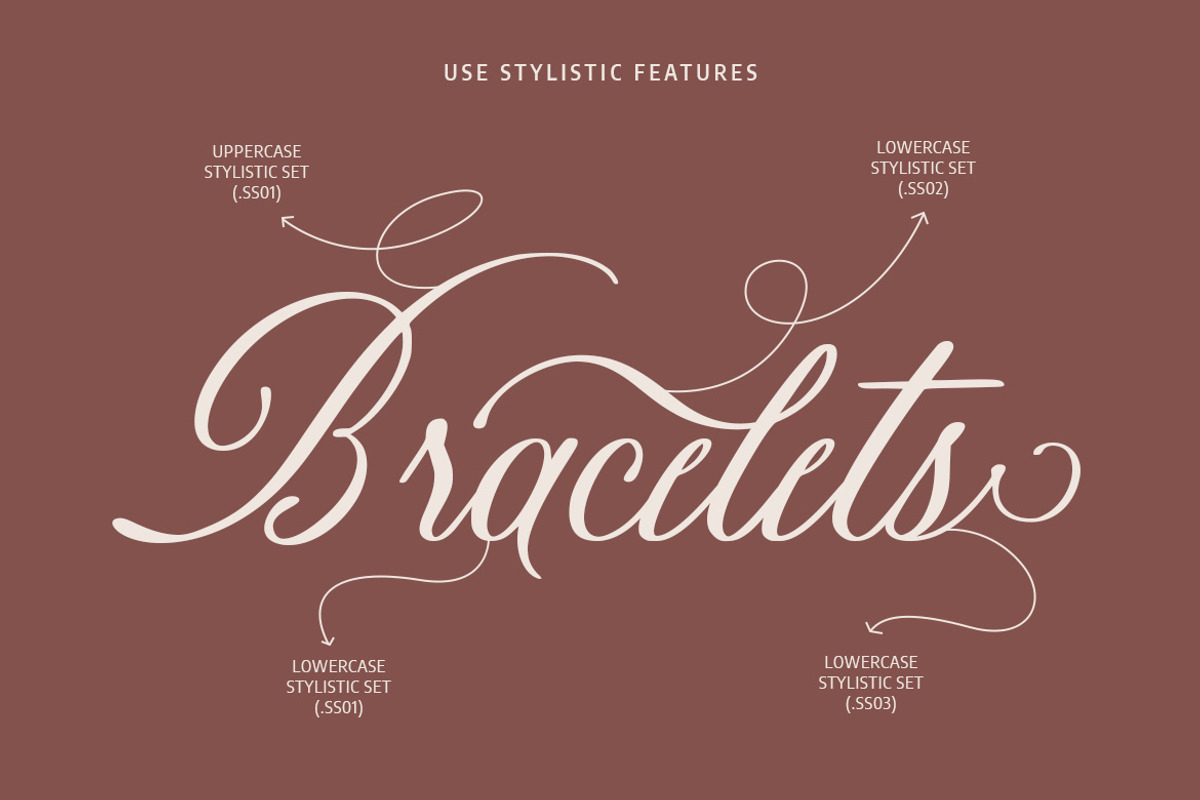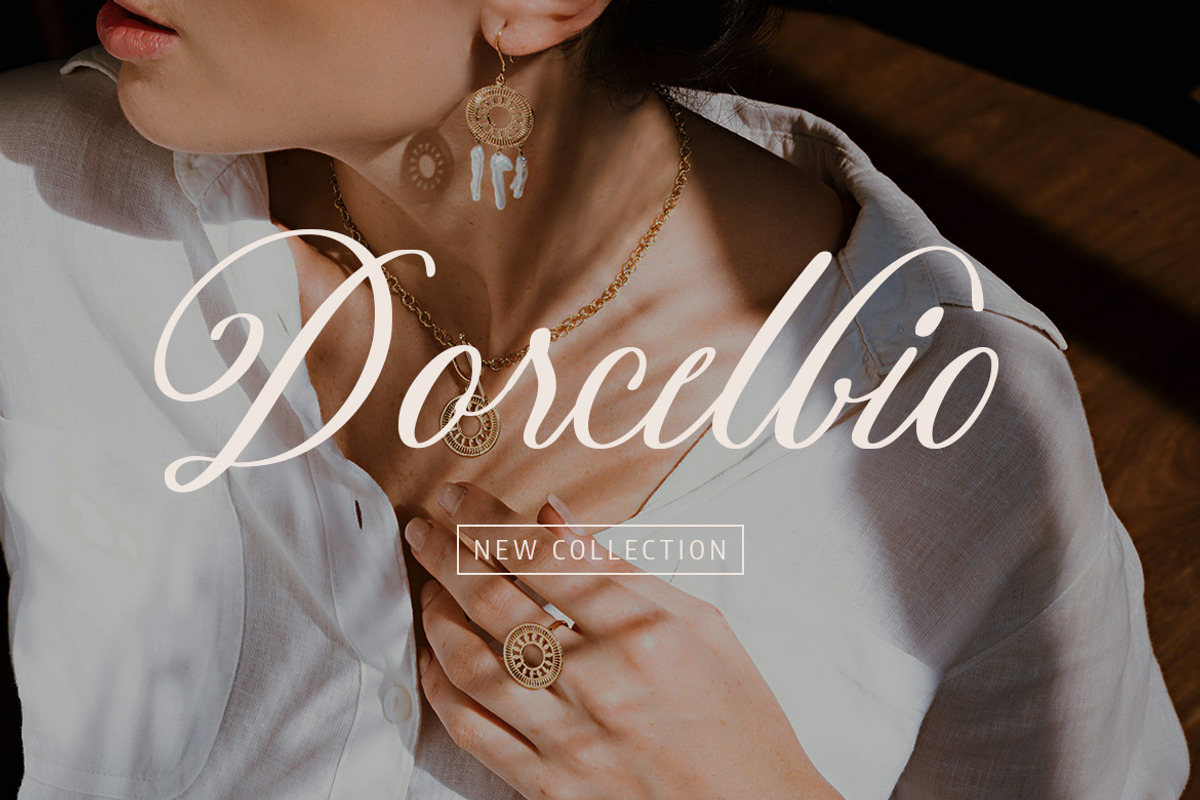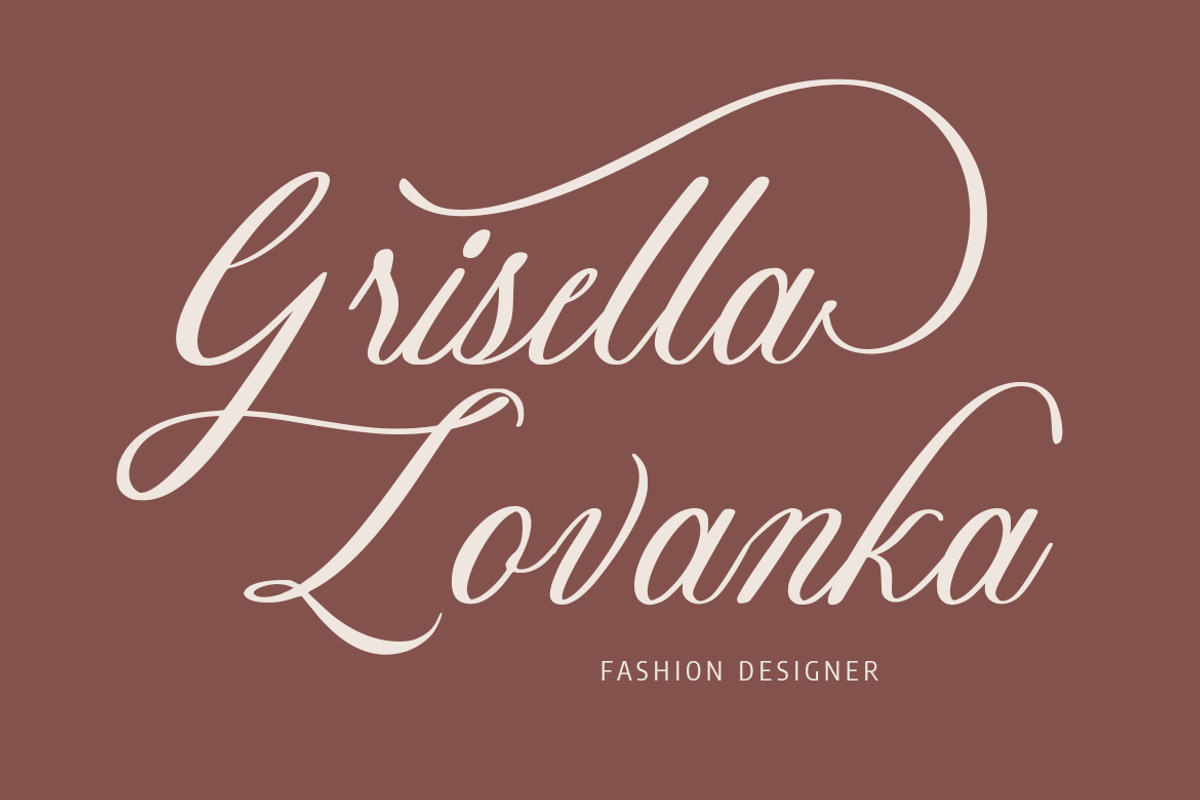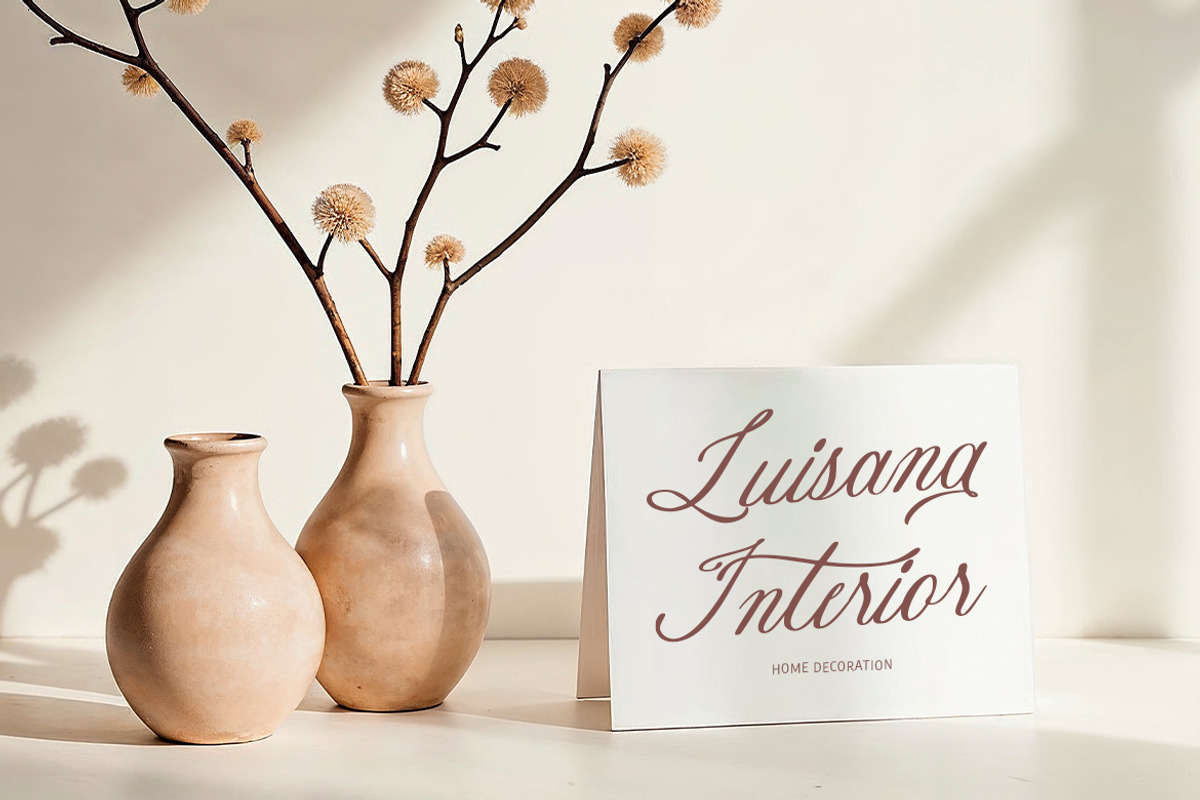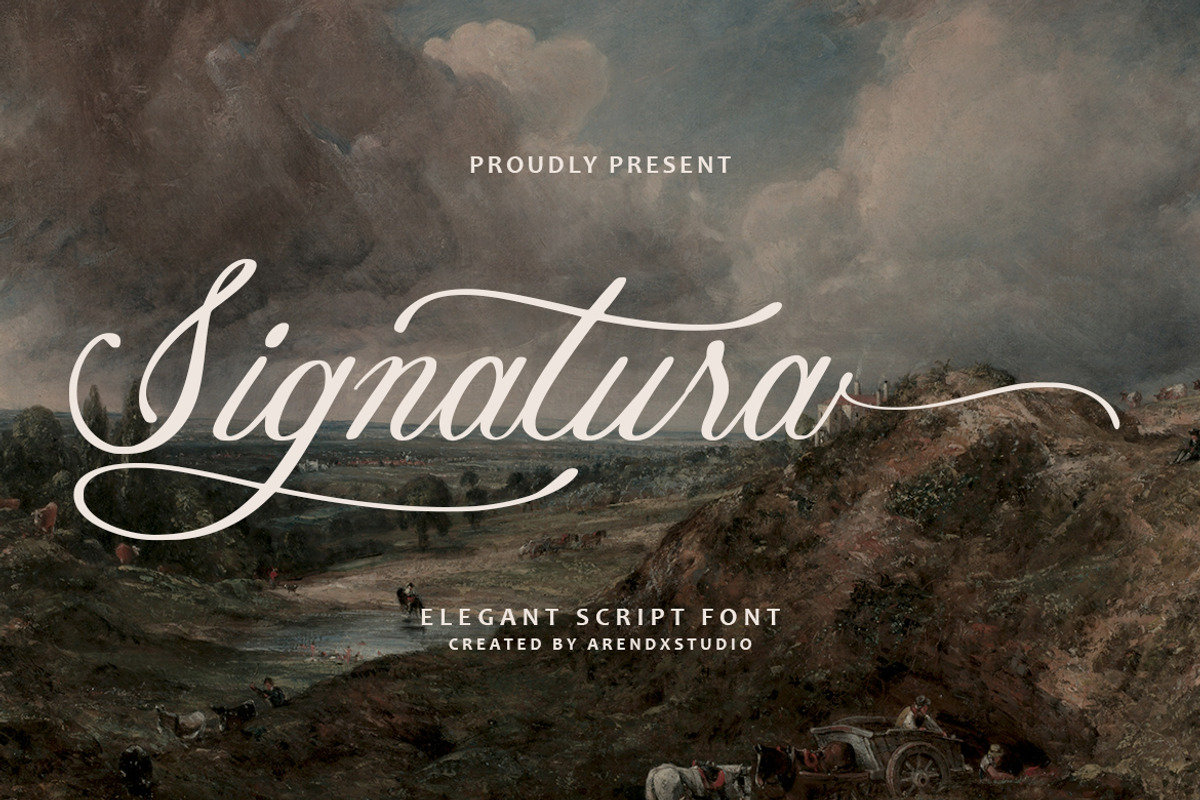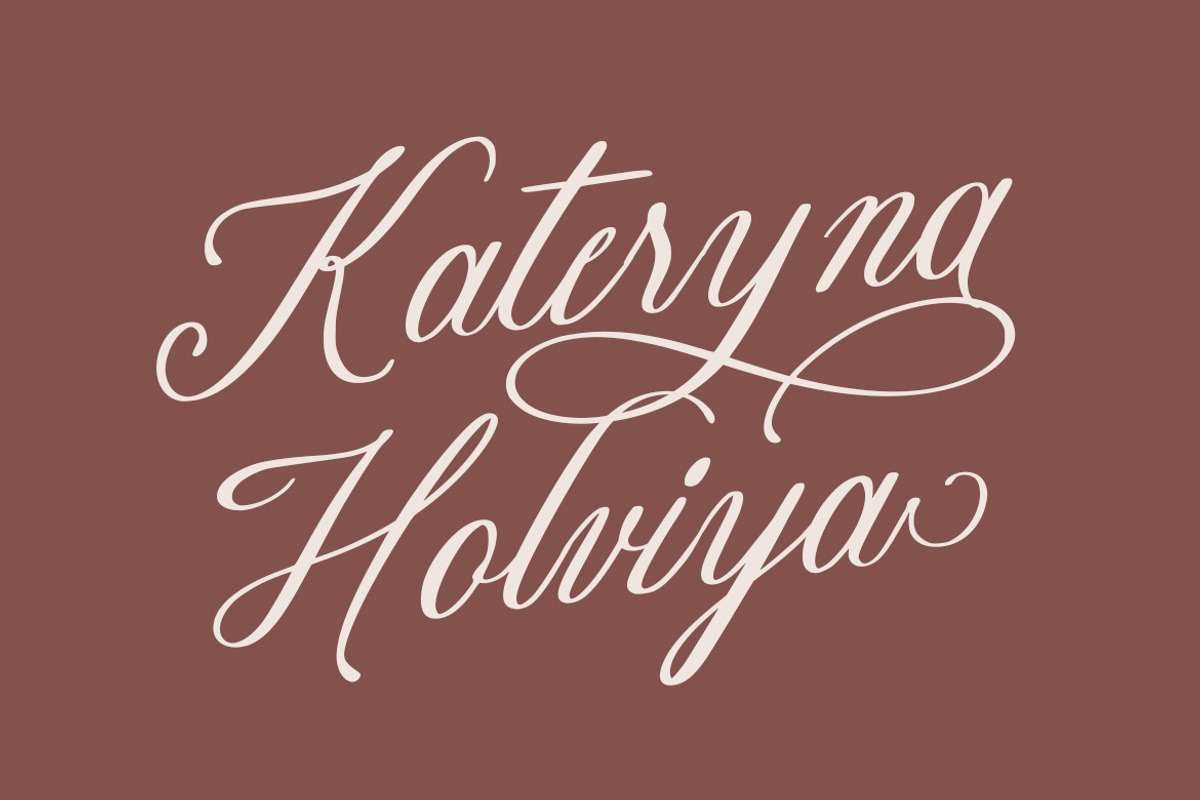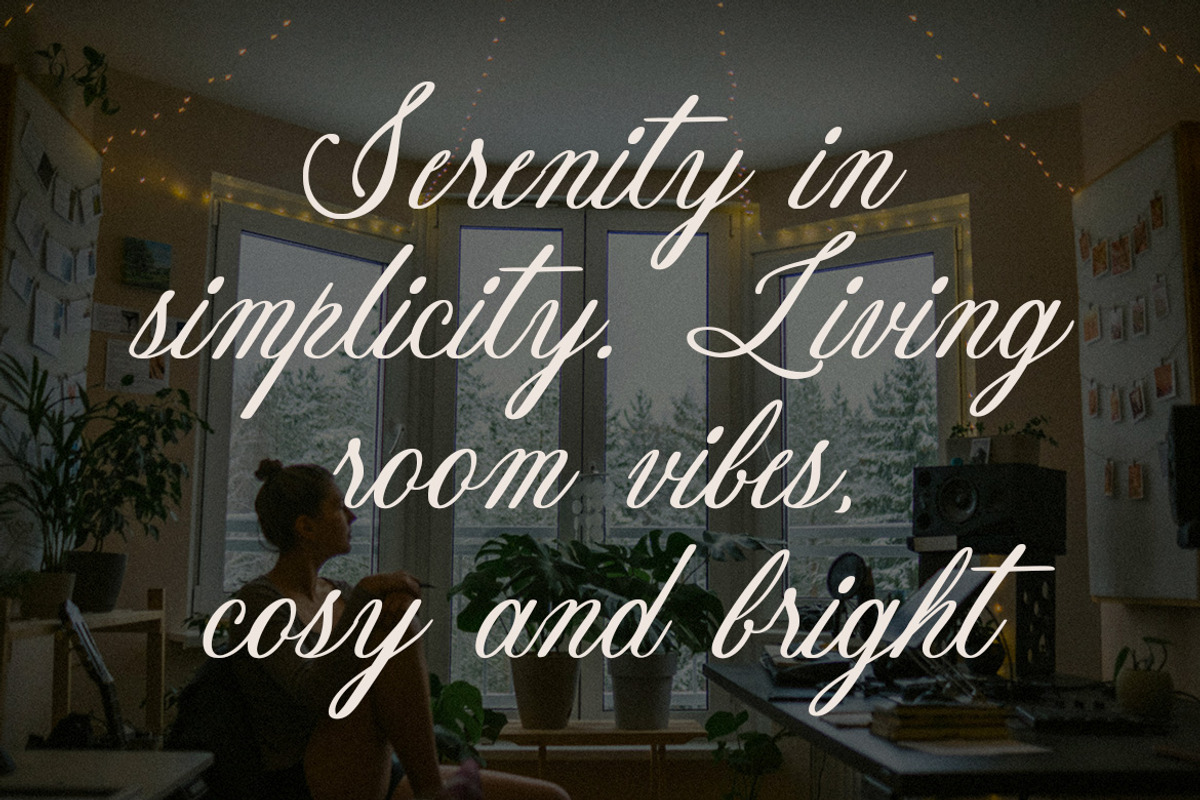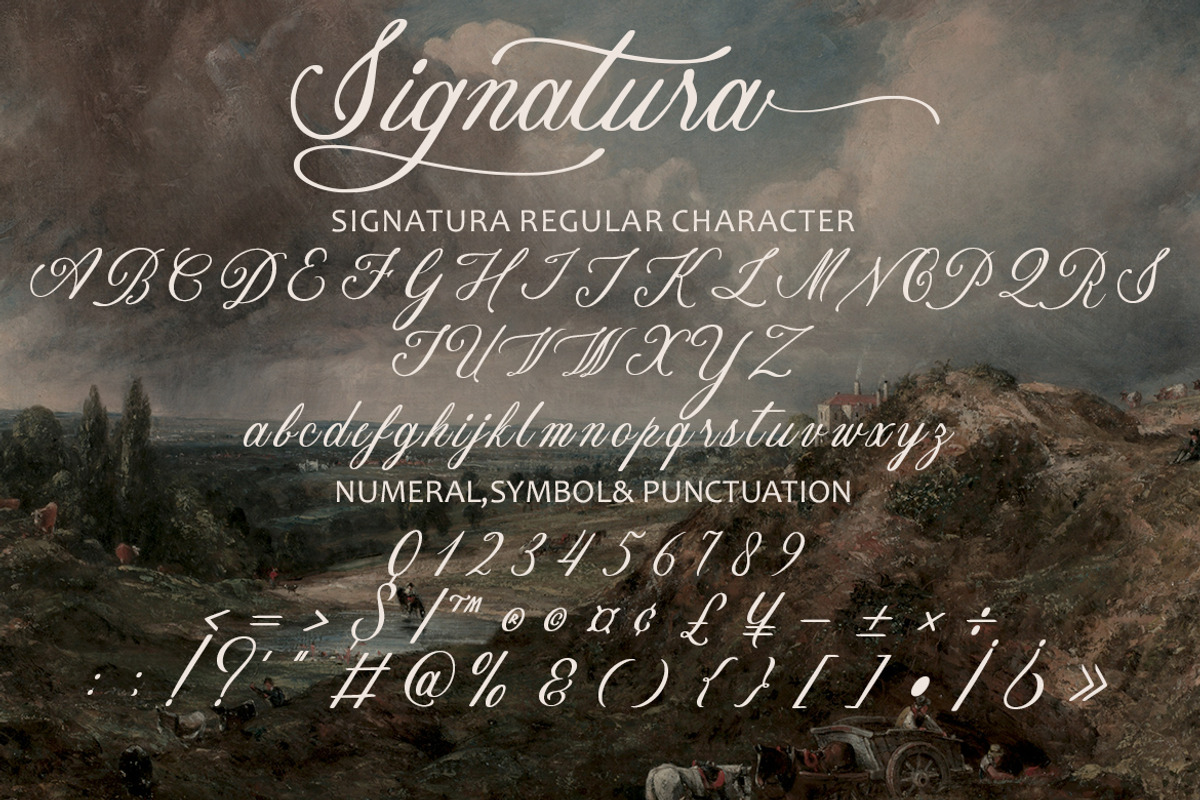
Signatura – Elegant Script Font
Sigatura – Refined Elegant Script Typeface
Sigatura is a beautifully refined script typeface crafted to elevate projects that call for sophistication, grace, and a timeless handwritten touch. Its flowing strokes and expressive rhythm create a sense of luxury and artistic presence, making it an exceptional choice for branding, signature-style identities, invitations, editorial titles, logotype compositions, product packaging, and creative visual storytelling. Sigatura brings a harmonious blend of modern elegance and classic script tradition, allowing each design to communicate warmth, exclusivity, and a polished aesthetic. Whether used for high-end branding or intimate personal projects, this typeface enriches every layout with charm and emotional resonance.